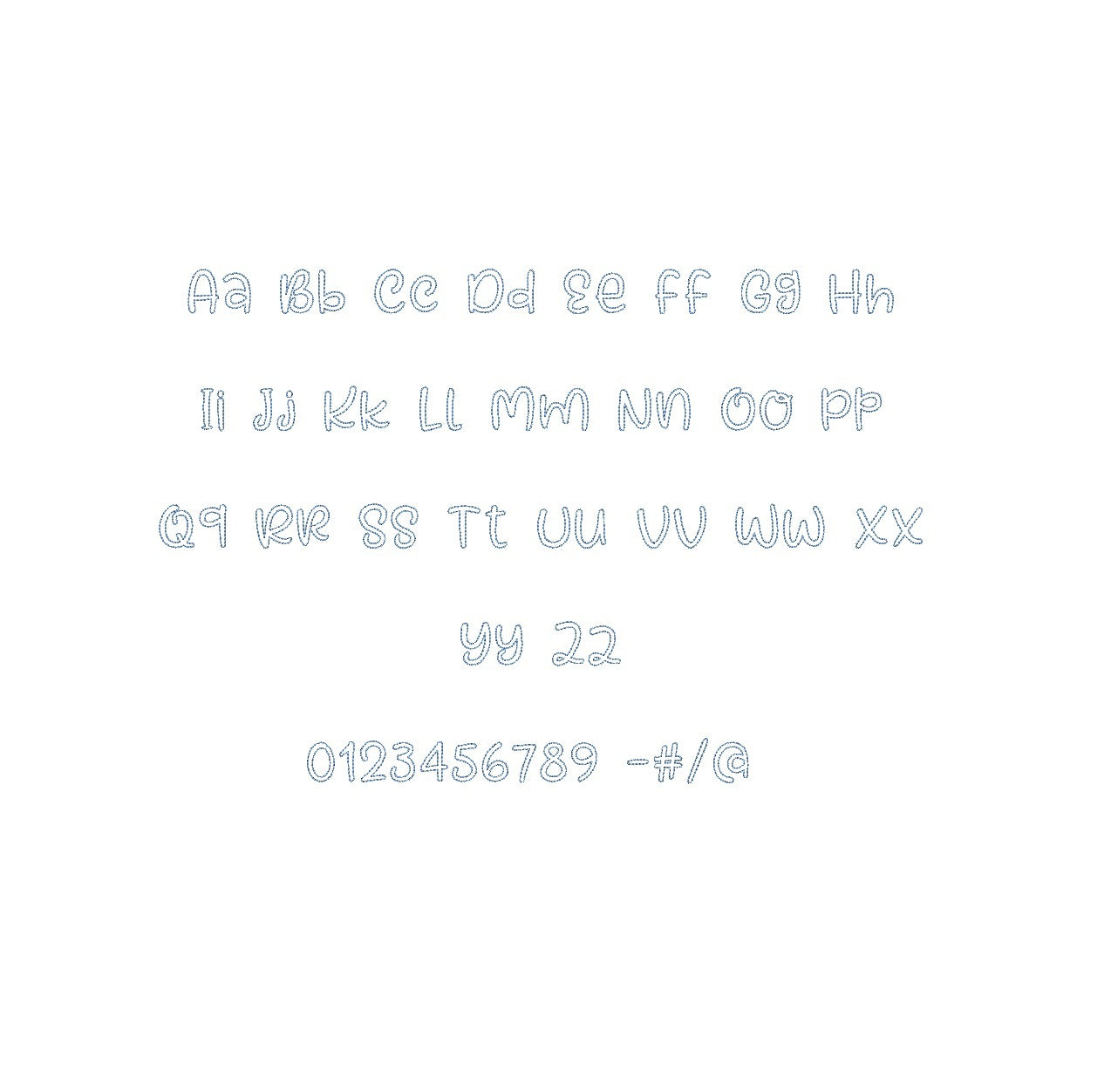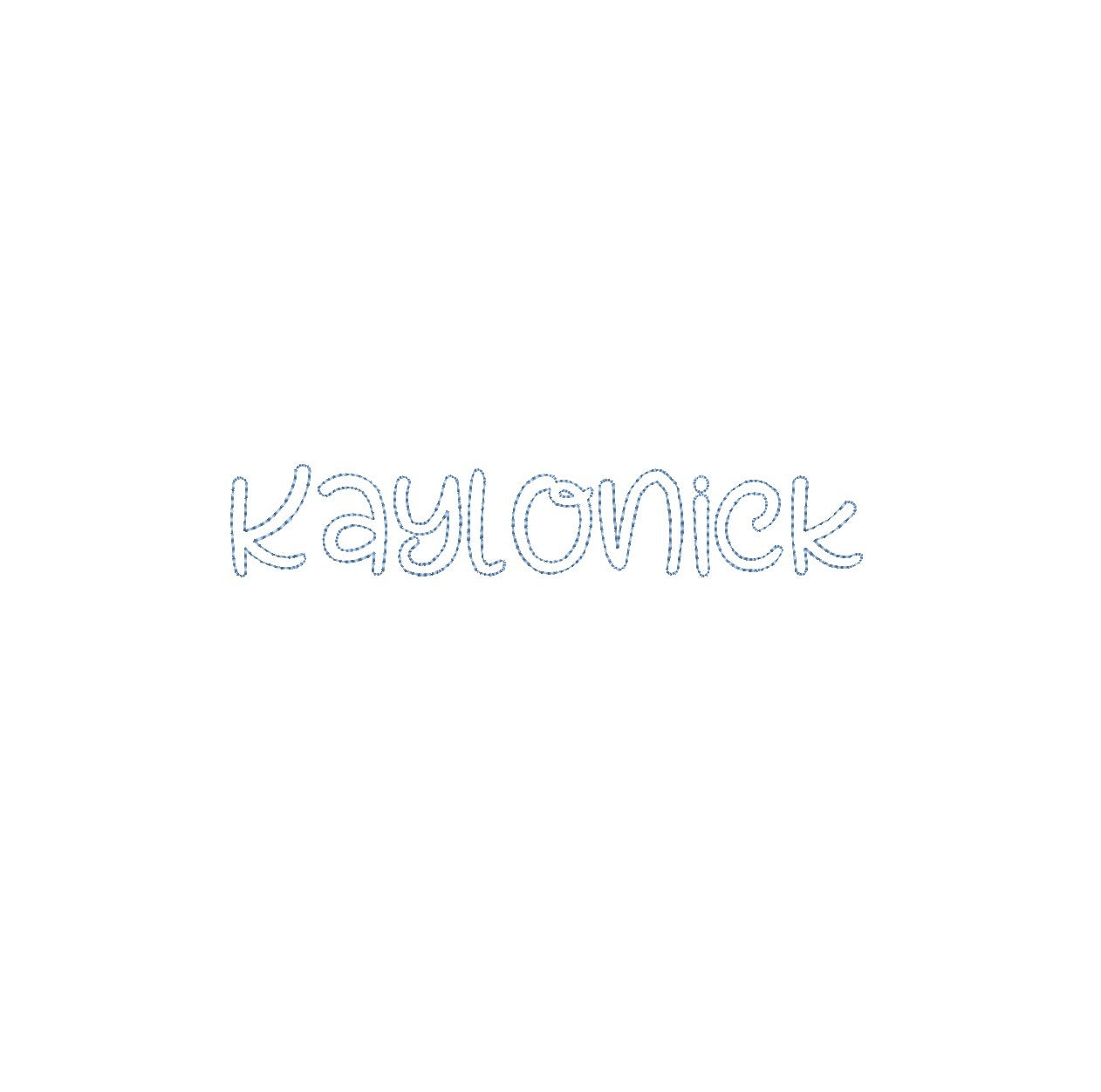
Elevate your embroidery game with the Kaylonick Bean Outline ESA font. Designed to perfection, this font seamlessly integrates with Wilcom Studio e4.5.6 and Hatch 3 versions and above. Craft stunning designs with its unique style, ideal for monograms and decorative elements. Ignite your creativity while streamlining your digitizing process effortlessly. Unleash your imagination with this indispensable font, conveniently accessible through Wilcom Studio and Hatch software. Revolutionize your embroidery creations with the Kaylonick Bean Outline ESA font and bring your designs to life like never before.